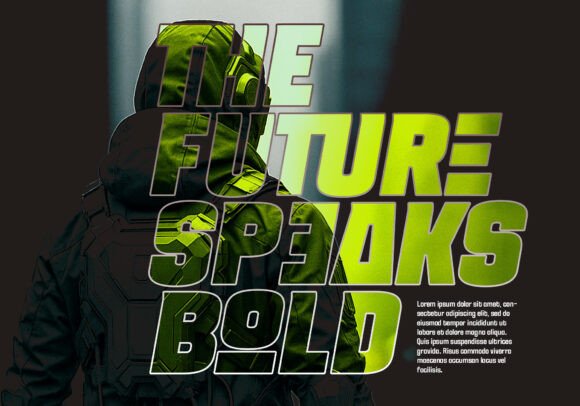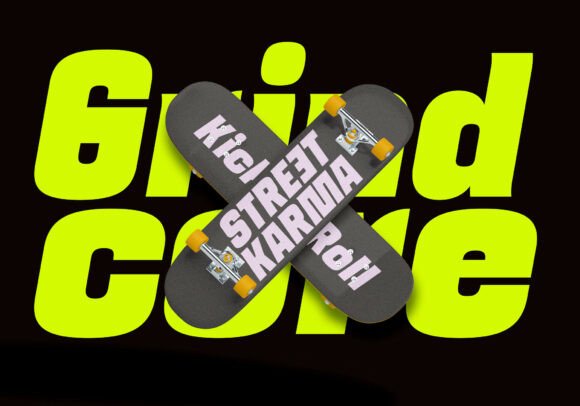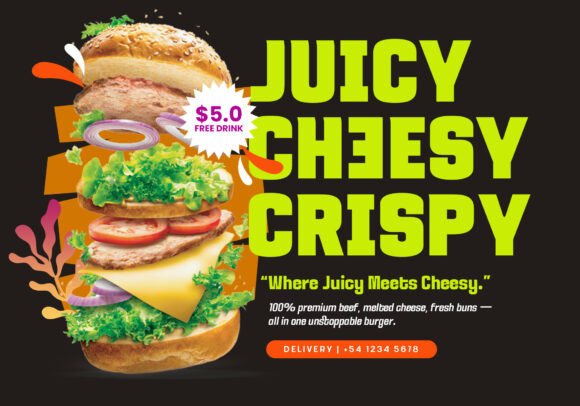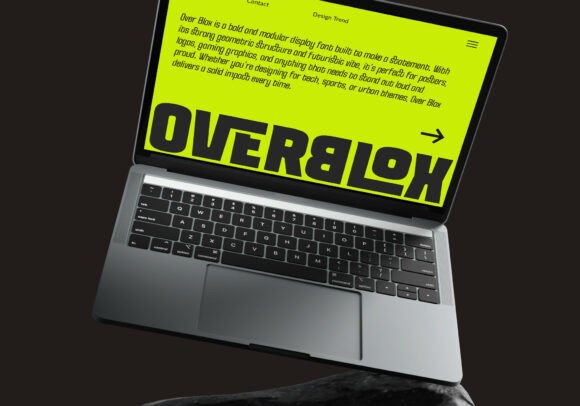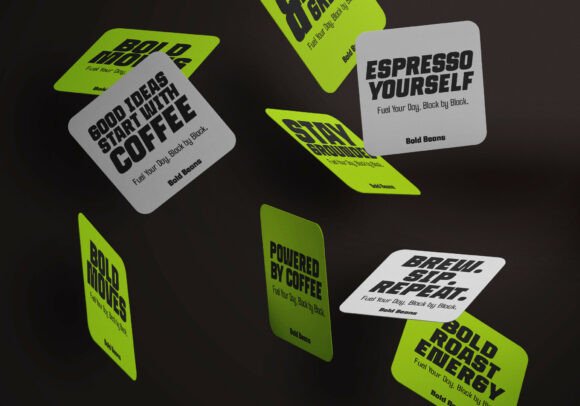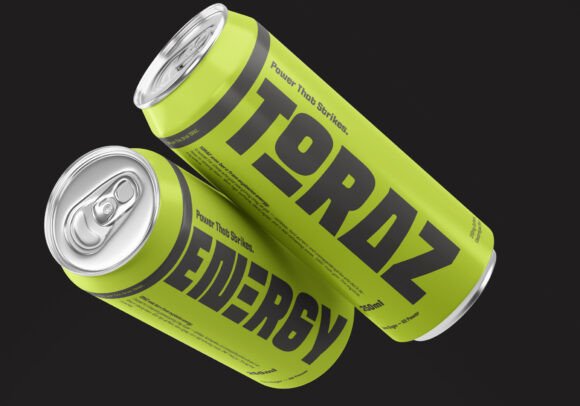
Introduction to Overblox Regular Font
OVERBLOX is a bold display font built to hit hard and dominate every design.
Featuring 20 styles from Thin to ExtraBlack, plus italic versions for Thin and ExtraBlack, OVERBLOX delivers ultimate versatility for all your creative needs Its blocky, confident, and futuristic shapes make it perfect for streetwear branding, skateboard graphics, concert posters, game titles, and logos that demand attention.
Key Features of Overblox Regular Font